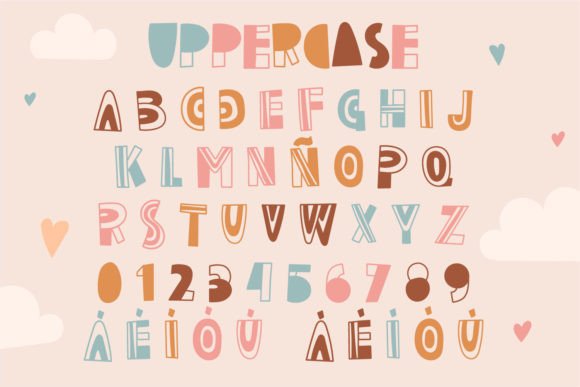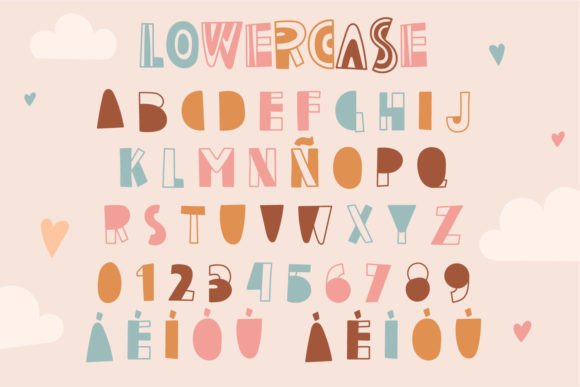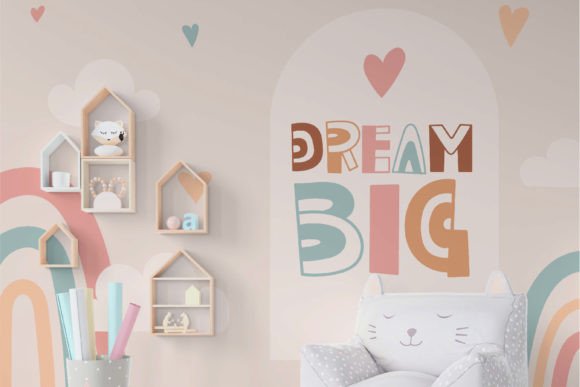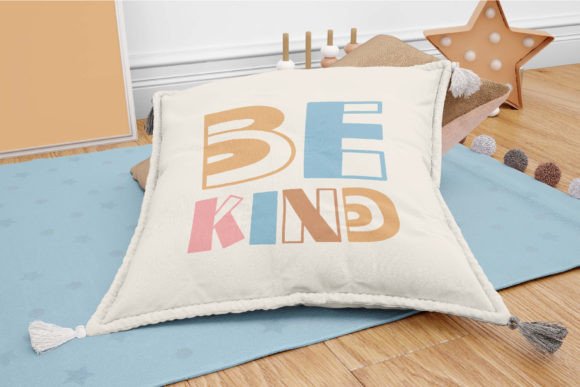
Introduction to Rainbow Cutout Font Font
Fonts play a crucial role in design, and the Rainbow Cutout Font font is a typeface that brings both character and versatility to any project. Whether you’re working on a branding project, a website, or a print design, the Rainbow Cutout Font font offers a unique style that can elevate your work.
Rainbow Cutout is perfect for creating art thatβs full of character and whimsy.
The font is inspired by the bohemian, hippy culture of the β60s and β70s, and is perfect for any project that requires an element of nostalgia or a sense of adventure .
Key Features of Rainbow Cutout Font Font
Why Choose Rainbow Cutout Font Font?
The Rainbow Cutout Font font is more than just a typeface β it’s a design tool that helps you communicate your message with style and clarity. Its unique character set and versatile design make it suitable for a wide range of applications, from elegant invitations to bold headlines.
With its carefully crafted letterforms and balanced proportions, the Rainbow Cutout Font font ensures readability and visual appeal across all mediums.
What makes Rainbow Cutout Font font special?
The Rainbow Cutout Font font stands out with its unique design, exceptional readability, and versatility across various design applications.